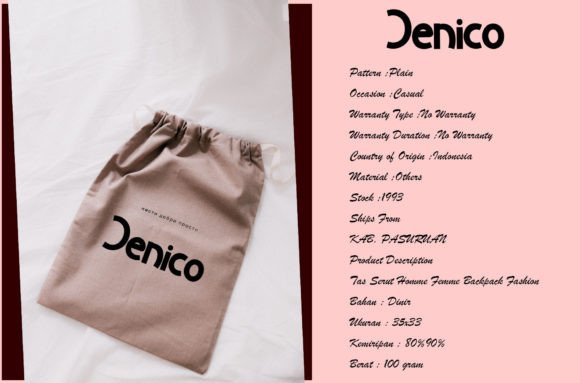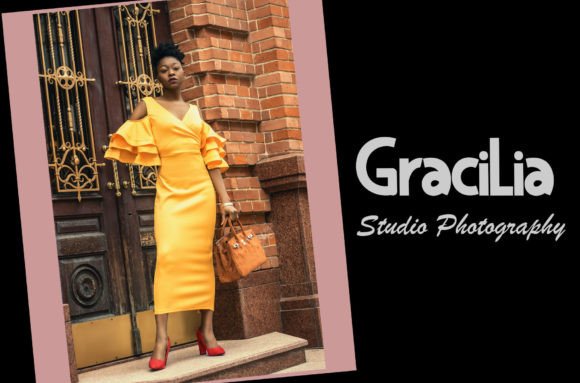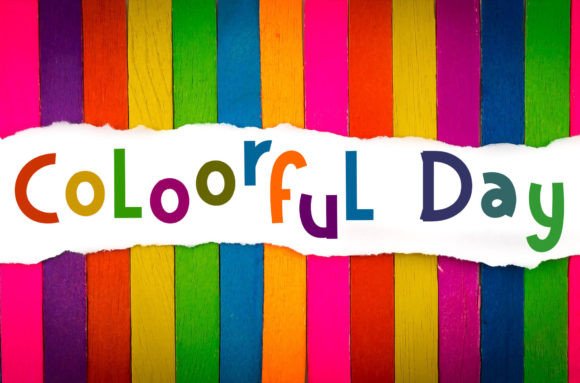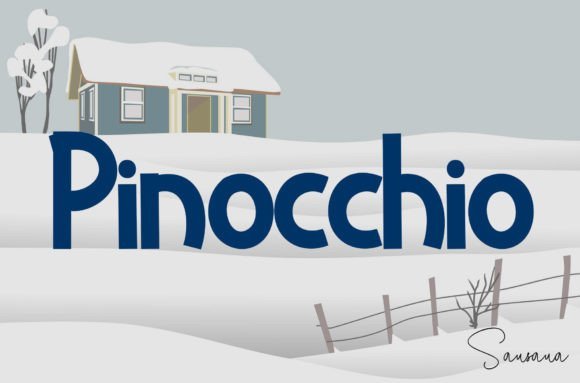
Introduction to Pinocchio Font
Pinocchio is sweet and pretty writing that is easy to mix and match with any type of creativity.
Make your inspiration by using this handwriting which will surely make it more beautiful and sweet .
Key Features of Pinocchio Font